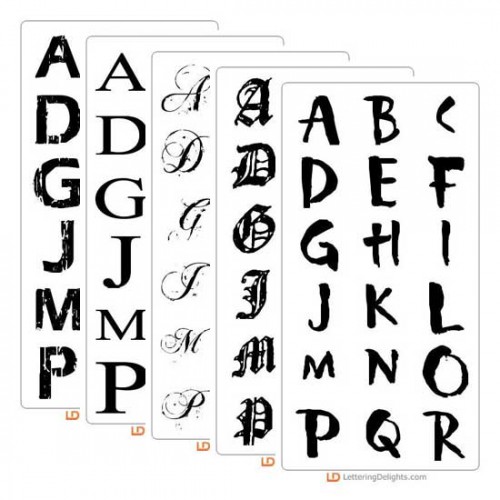
Big Hairy Scary Font Bundle
What is Big, Hairy, and Scary? Why it's our Halloween themed Font Bundle and what better to celebrate this season then with this collection of spooky Fonts and DoodleBats.
TXT Stonewashed - Font
"Stonewashed" is yet another great font from the Lettering Delights TXT collection. Add bold titles ..
LD Timely - Font
"Timely" is a stylish take on the traditional Times New Roman font. Download this classic true type..
TXT Sloppy Script - Font
This script font is a little sloppy, but will add loads of character to your scrapbook journaling, c..
TXT Old English - Font
Add a touch of Old English charm with titles and wording done up in this unique font. It lends itse..
LD Wanted Funky - Font
Add a quirky old west flavor to your lettering projects. The off-balanced block letters of this "Wan..
LDJ Oogly Googly - Font
Scare up some fun this Halloween with a delightfully creepy font. Create some eye-catching wording ..
LDJ Silly Sister - Font
Add character to your paper crafts. Download this unique "Silly Sister" font to create lettering wit..
DB Boxy Halloween - DB
DoodleBat Boxy Halloween uses themed words and phrases that could give the bravest person a fright. ..
DB Circles - Halloween - DB
DoodleBat Circles - Halloween puts adorably spooky clipart and words in circles that are Halloween t..
DB Halloween Doodles - DB
DoodleBat Halloween Doodles is a collection of fun sketches and doodles. Happy Haunting!..
DB Halloween Words - DB
Can't find the write words to say Happy Halloween? Look no further then DoodleBat Halloween Words. ..
DB Spooky Doodles - DB
DoodleBat Spooky Doodles is a collection of scary ghosts and spooky ghouls clipart...
DB Vintage Halloween - DB
DoodleBat Vintage Halloween is a classic collection of Halloween clip art and words. Check it out!..
LD Count Fontula - Font
LD Count Fountula takes you back to Transylvania and the classic themed Font lets you celebrate this..
LD Horror Movie - Font
Seen a good Horror Movie lately? LD Horror Movie is the perfect for adorning your Halloween Party i..
LD Scary - Font
Get scared stiff with LD Scary. This Halloween themed font uses thin letters and curls to add a spo..